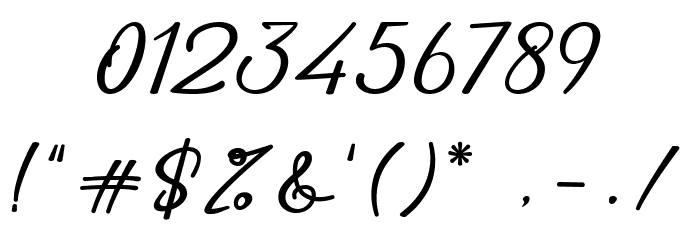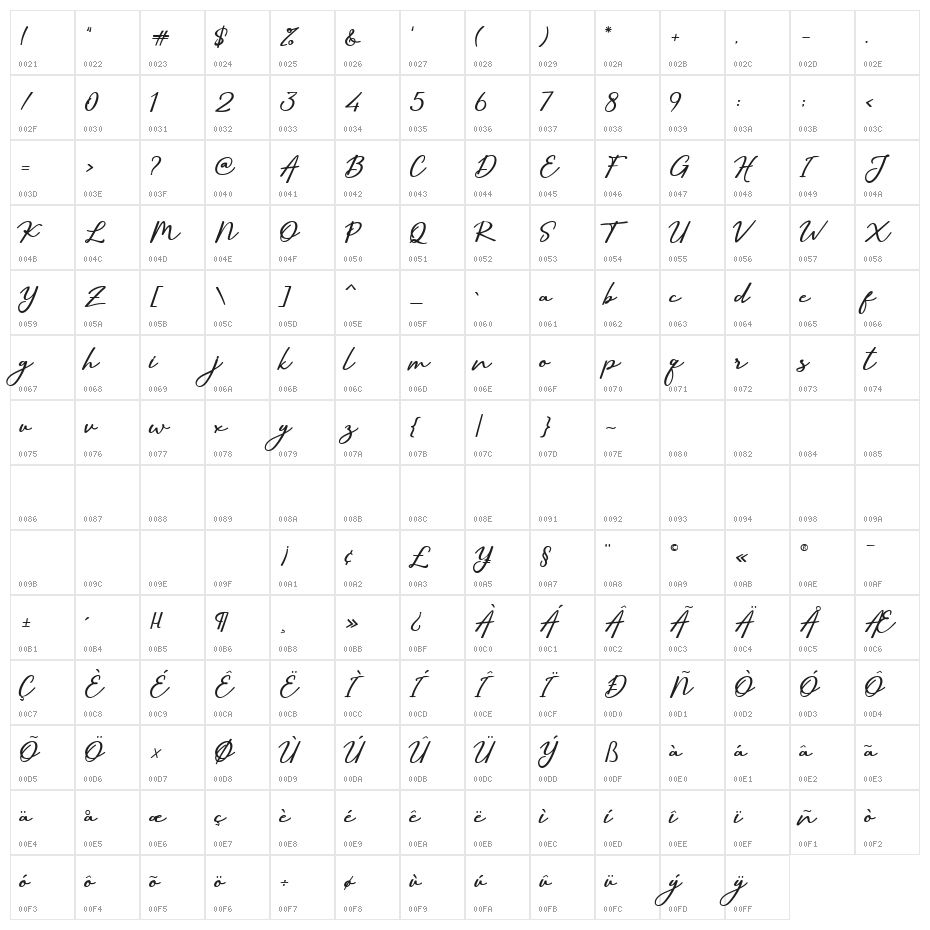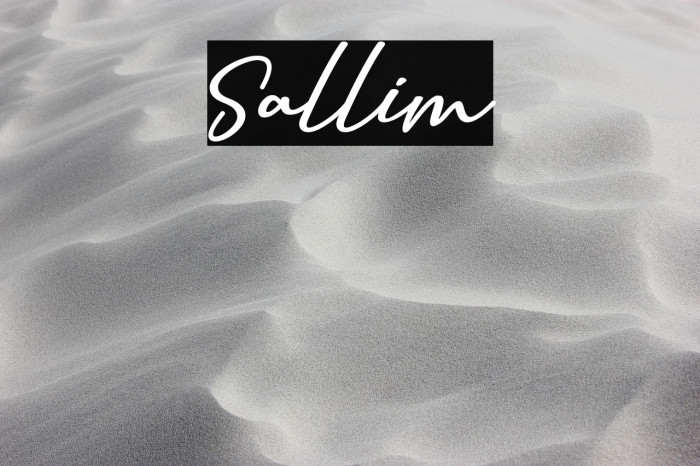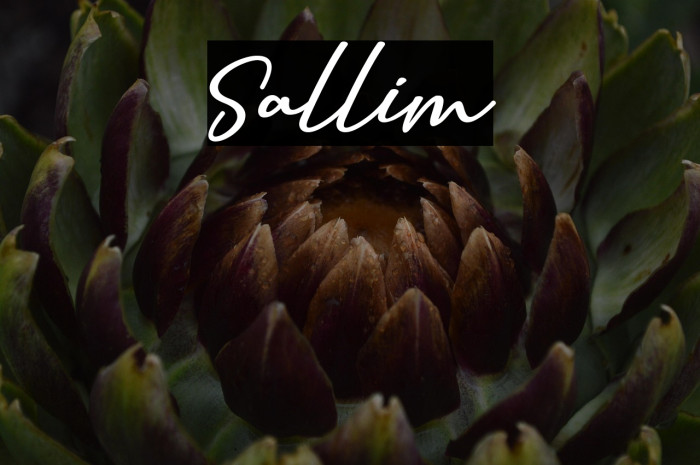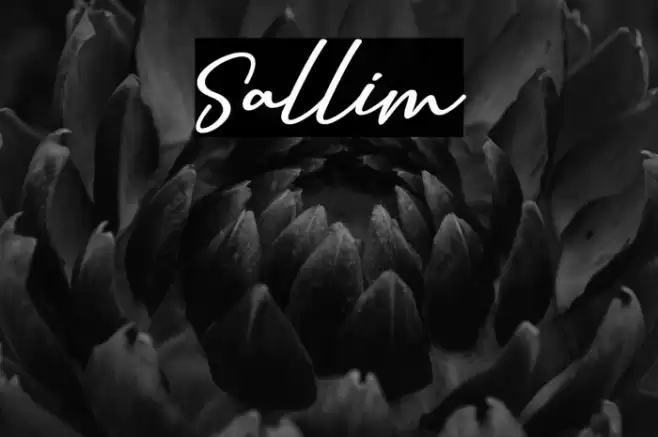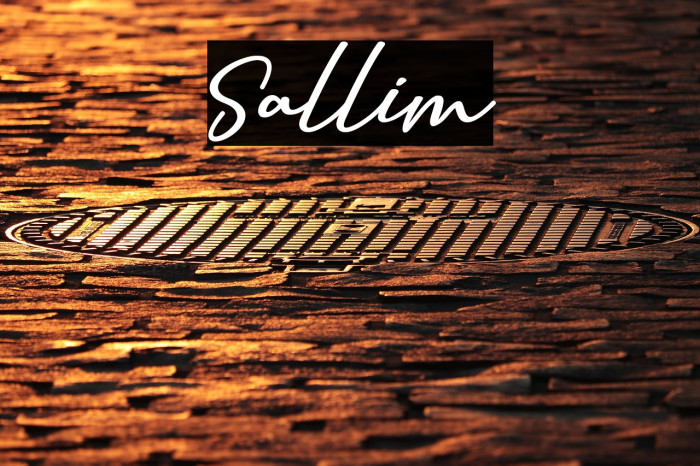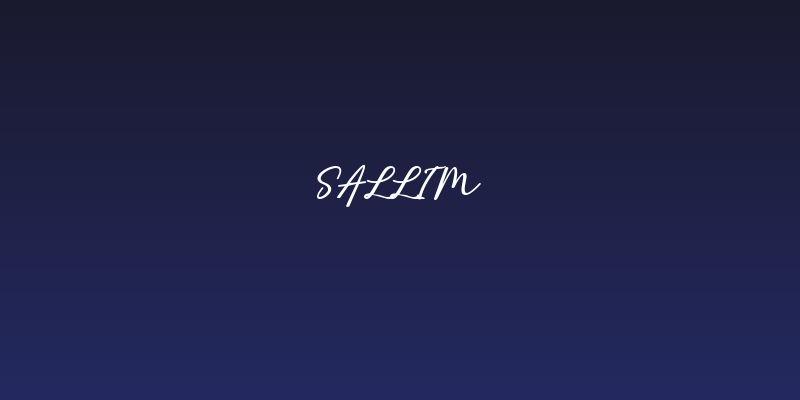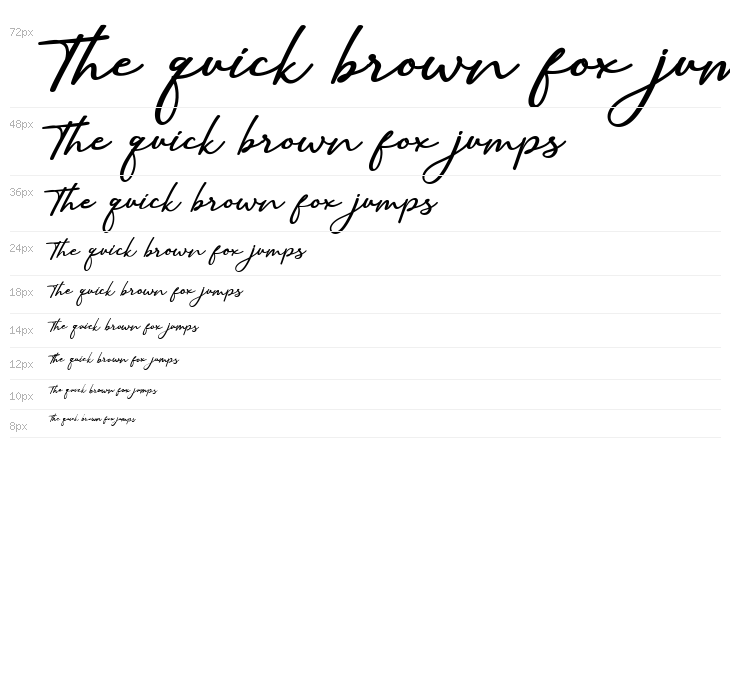
Sallim Font
Sallim Description
This font exudes a classic and elegant script style, characterized by its flowing, cursive letterforms. Each character is meticulously crafted with smooth, continuous strokes that mimic the fluidity of handwriting. The uppercase letters are bold and prominent, while the lowercase letters maintain a graceful and delicate appearance. The numerals are consistent with the overall style, offering a harmonious blend of sophistication and readability. Special characters are thoughtfully designed to complement the script, enhancing the font's versatility. This font is perfect for projects that require a touch of elegance and personal flair.